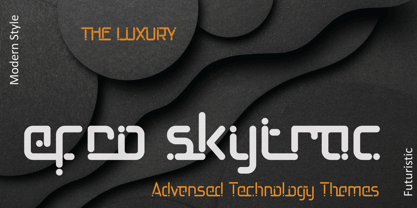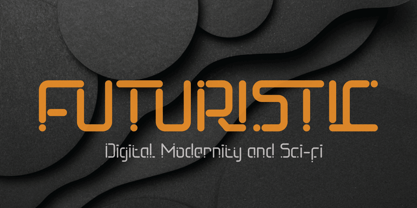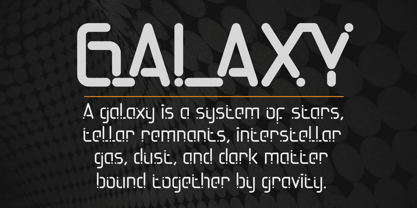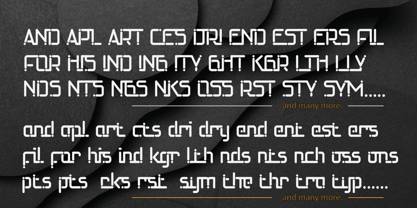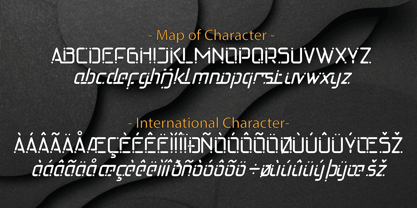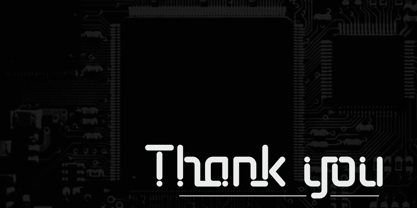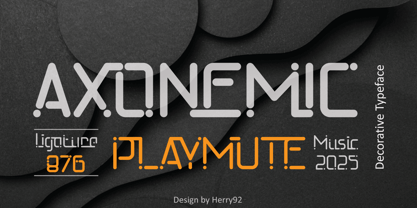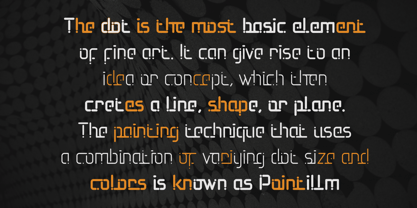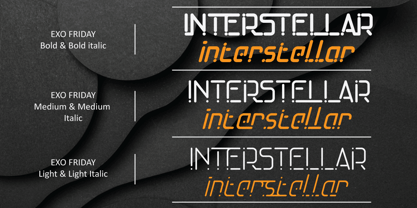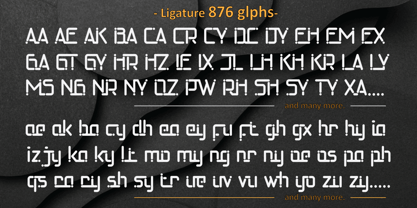
Axonemic
by Herry92
The Axonemic Font Family was designed by Herry Herry and published by Herry92. Axonemic contains 6 styles and family package options.
This font combines technological elements with futuristic aesthetics, making it ideal for visual identities that emphasize sophistication, connectivity, and digital modernity. This type of font is typically used for: Branding and logos in the tech industry (software, hardware, AI startups), Interface design (UI/UX) with a futuristic or cyber aesthetic, Posters, games, and sci-fi movies (space, machines, or advanced technology themes), and Electronic products and industrial automation.
Designers: Herry Herry
Publisher: Herry92
Foundry: Herry92
Design Owner: Herry92